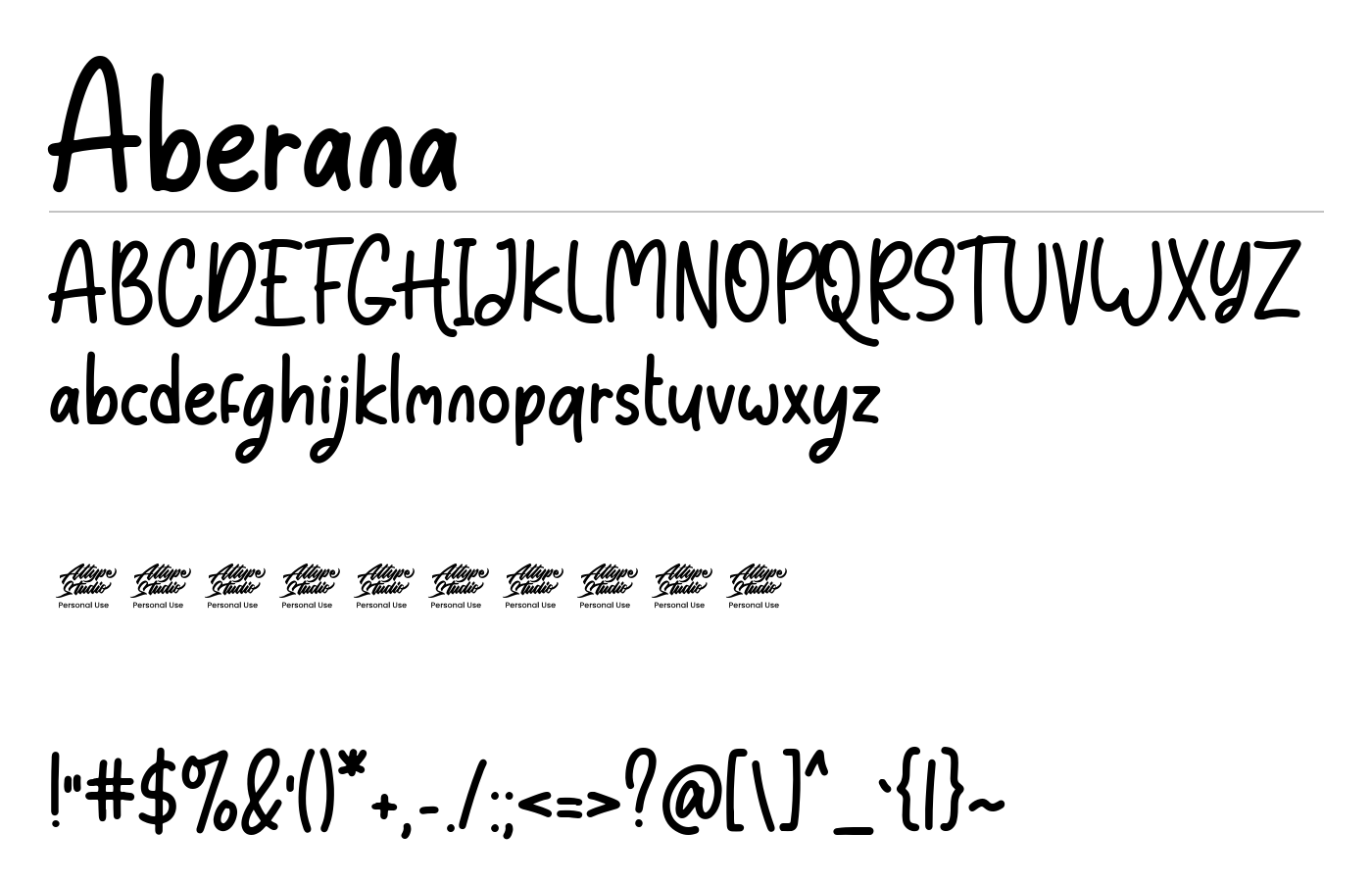
Aberana is a lively, hand-drawn sans serif font with a casual and playful character. Its informal strokes and slightly irregular letterforms give it a warm, friendly appeal, making it perfect for personal projects, creative branding, and playful editorial designs. This font works well in contexts where a relaxed, approachable tone is desired, such as greeting cards, children's books, or fun logos.
Aberana Font
About Aberana Font